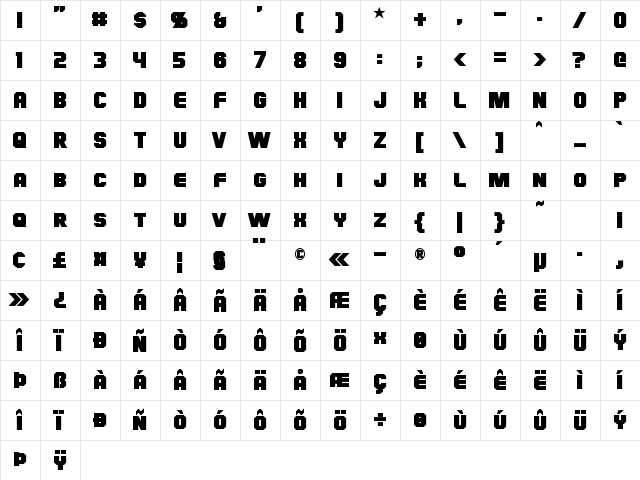
Hauser Bold Free Font
Hauser Bold
Foundry: Neale Davidson
Designer: Neale Davidson
Design Context for Hauser
Hauser is a composed and adaptable typeface that performs quietly and consistently across a wide range of design contexts. Its bold stroke weight gives it real presence on the page.